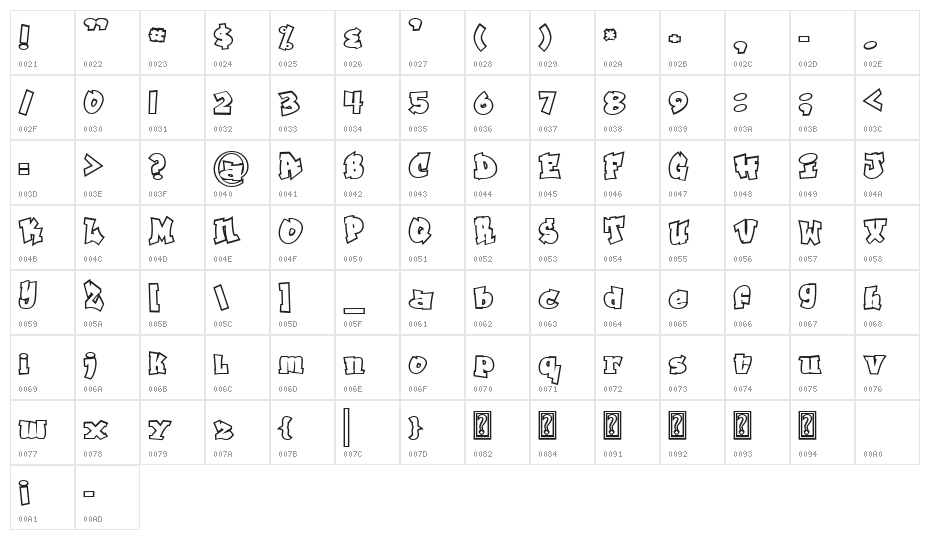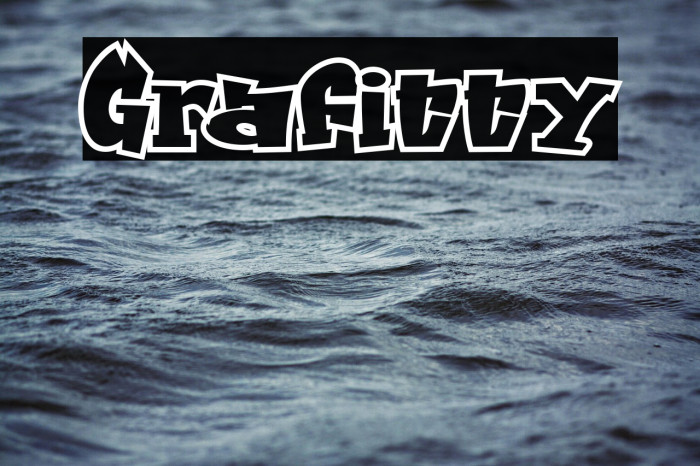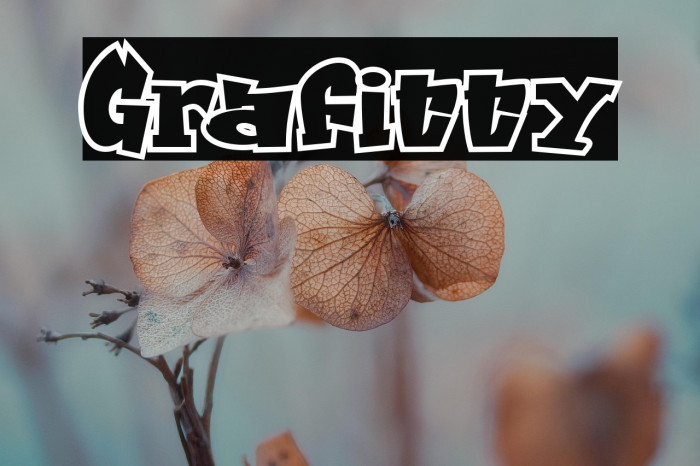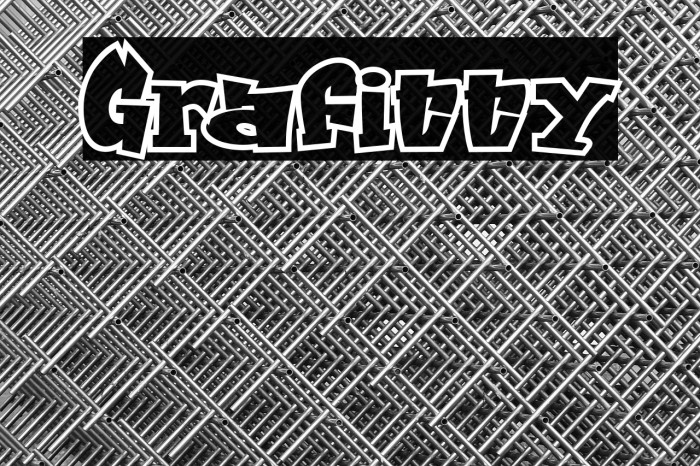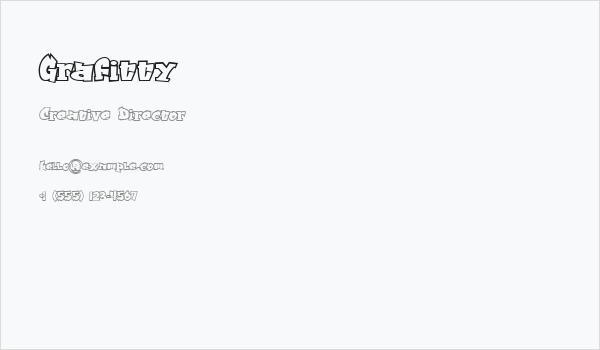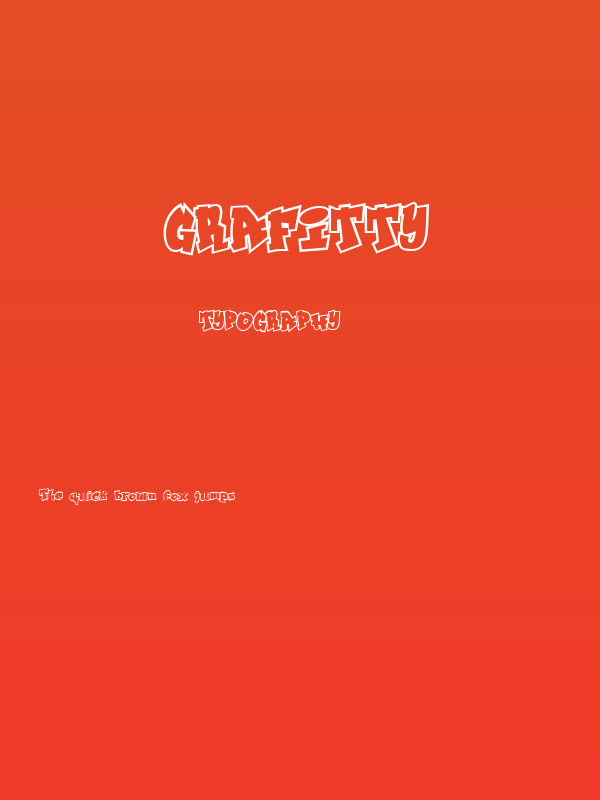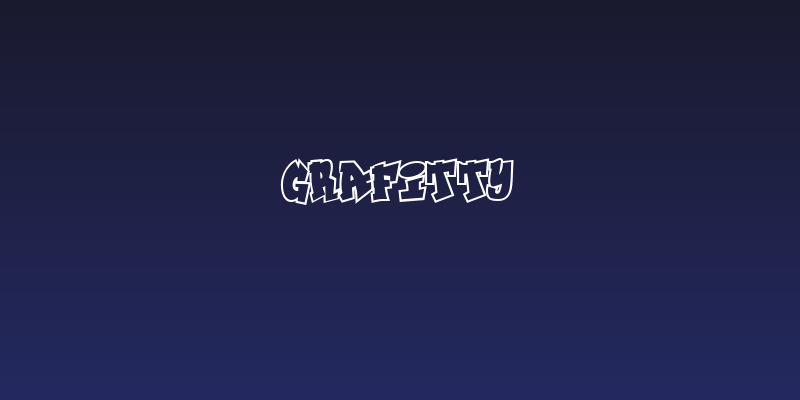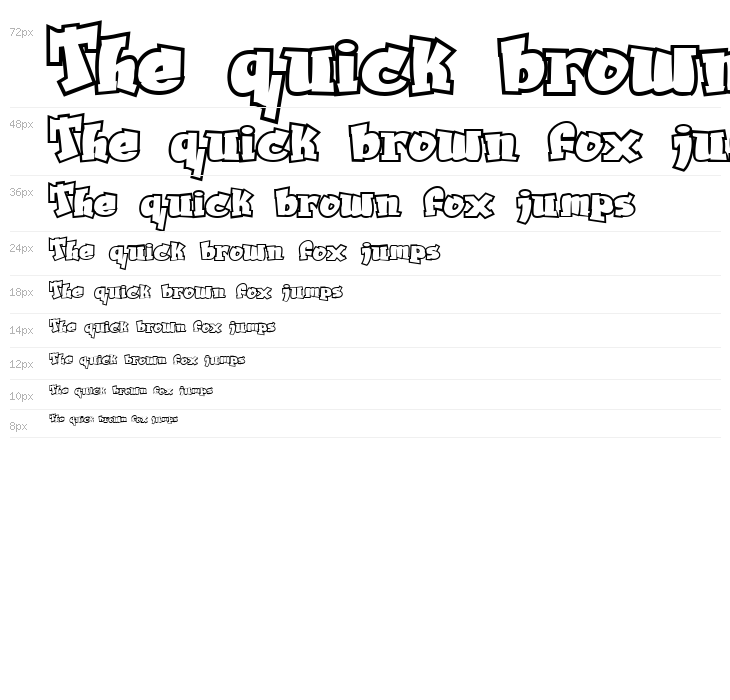
Grafitty Font
Grafitty Description
This font embodies a bold, urban graffiti style with exaggerated, playful shapes and thick outlines. The characters are dynamic and energetic, featuring a hand-drawn aesthetic that mimics street art. Each letter has a unique, irregular form, contributing to a sense of movement and spontaneity. The font's boldness is emphasized by its thick strokes and high contrast, making it highly visible and impactful. The spacing between characters is tight, enhancing the compact and cohesive appearance. This font is ideal for projects that aim to capture an edgy, youthful, and rebellious vibe.
| Overall Style | Urban, Edgy, Playful |
| Proposed Projects | Perfect for street art designs, urban-themed posters, music album covers, and edgy branding. |